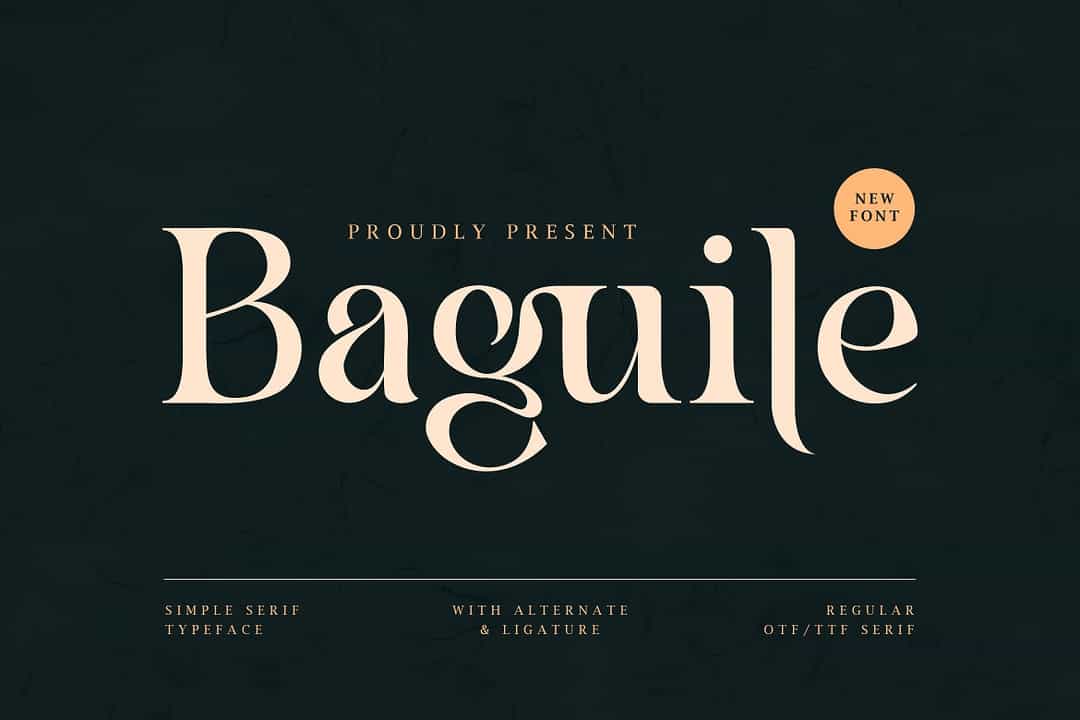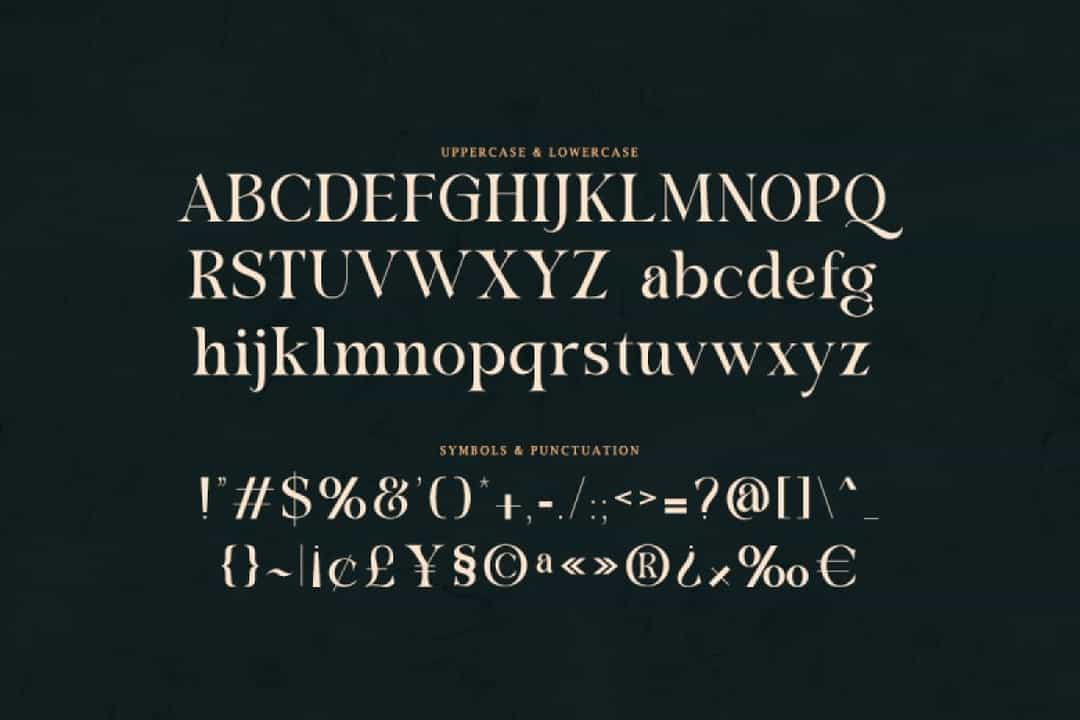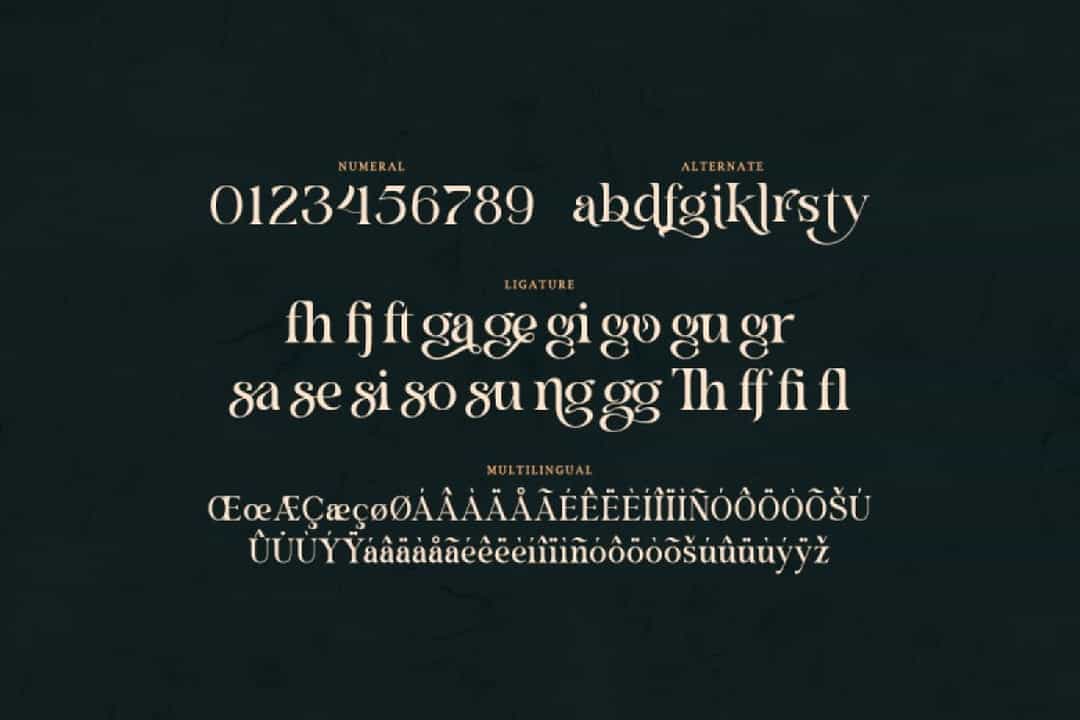
Baguile is a simple serif typeface with stunningly intricate design elements and versatile applications. Utilize it for stunning, yet subtle appearance and maximum flexibility!